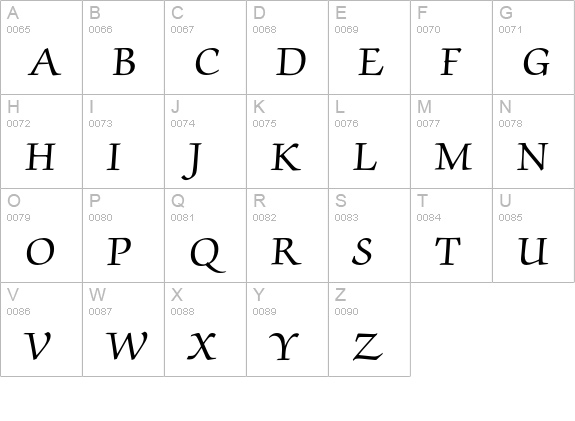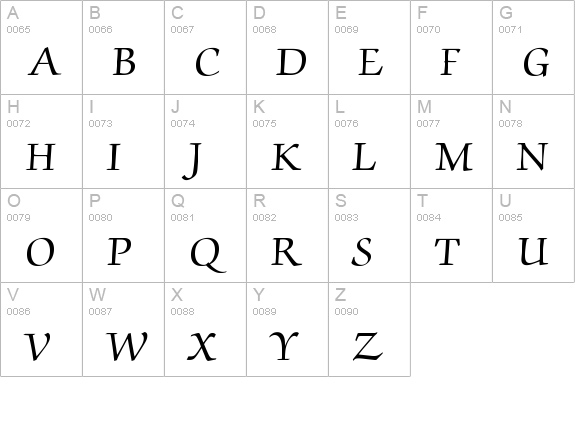
ZapfChanceryEF-Medium is a balanced, medium-weight variant in the ZapfChanceryEF typeface family \xE2\x80\x94 well suited to sub-headlines, navigation, and balanced editorial work.
ZapfChanceryEF-Medium is a classic and elegant font that exudes a sense of sophistication and style. With its flowing and graceful letterforms, this typeface is perfect for adding a touch of class to any design project. The medium weight strikes a balance between being bold and delicate, making it versatile for various applications. What sets ZapfChanceryEF-Medium apart is that it is available for free download at FontsMarket.com. This means you can easily access this premium font without any cost, allowing you to enhance your designs without breaking the bank. Whether you're working on a professional project or a personal creative endeavor, ZapfChanceryEF-Medium is a valuable addition to your font collection. Download it today and elevate your designs with this timeless and exquisite typeface.